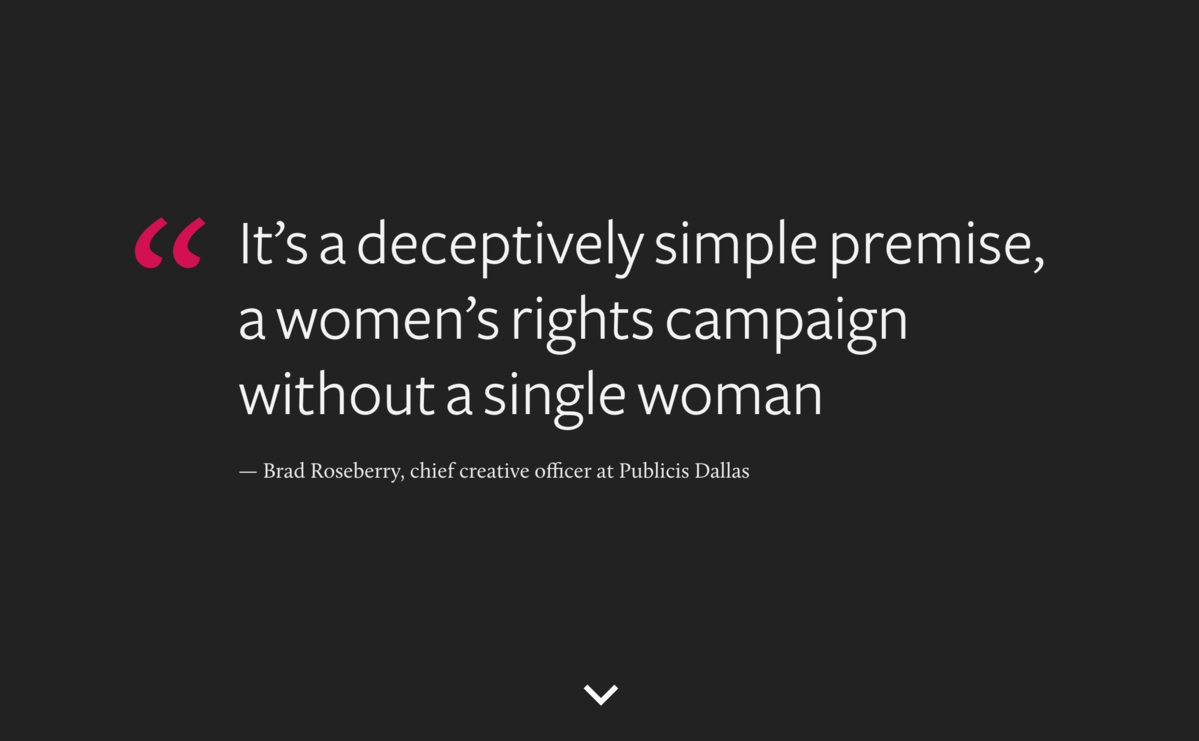
Curly quotes are the quotation marks used in good typography. All quotation mark symbols there are many different types of quotation marks in unicode general punctuation block.
Quotation marks font types. True t/f alphabetize your works cited page including “a”, “an”, or “the” as the first word of a title. In most content, use double quotation marks ( ) not single quotation marks (' '). Double quotation marks aren’t australian government style.
Right double quotation mark „ „ Draw attention to a word you’re defining. T/f quotation marks should be placed around titles of shorter works (articles, poems, short stories, essays).
Single quotation marks are also known as ‘quote marks’, ‘quotes’, ‘speech marks’ or ‘inverted commas’. Quotation marks have a variety of forms in different. ' ‘ ’ “ ” ‛ ‚ „ « » ‹ › ` once you've made the choice of which quotation marks you want to support in your font, select and copy the text of each mark, and paste it under each specific glyph, like below:
Fake quotation marks, or dumb quotation marks straight quotes are the most common type of quotation marks since the invention of computers and until today — despite the fact that designers and typographers refuse to consider them as such at all. Straight quotes are the two generic vertical quotation marks located near the return key: Show direct speech and the quoted work of other writers;
Straight quotes are the two generic vertical quotation marks located near the return key: The opening single quote ( ‘ ), the closing single quote ( ’. The quotation mark may looks like curly on the browser, however neutral or straight quotation mark will look like straight on documents.
The punctuation marks being used incorrectly in so much design nowadays were originally called prime and double prime. True t/f mla prefers times new roman font answer: Quotation marks, also known as quotes, quote marks, speech marks, inverted commas, or talking marks, are punctuation marks used in pairs in various writing systems to set off direct speech, a quotation, or a phrase.the pair consists of an opening quotation mark and a closing quotation mark, which may or may not be the same character.
Straight and curly quotes always use curly quotes. Otherwise, quotations are set flush with text, within the margin. Enclose the title of certain works;
Left double quotation mark ” ” In printed content, use curly quotation marks (“ ”) except in user input and code samples, which call for straight quotation marks ( ). There are four curly quote characters: